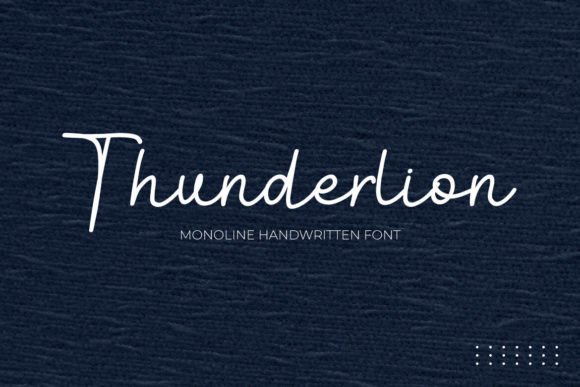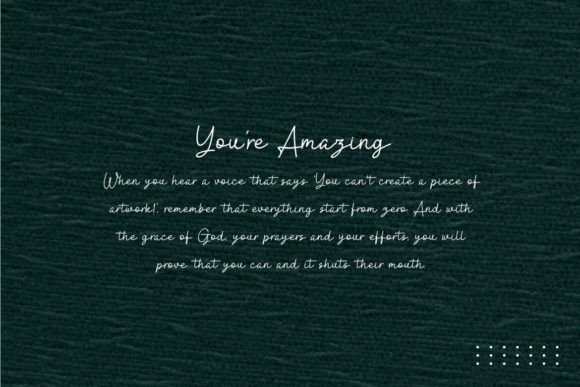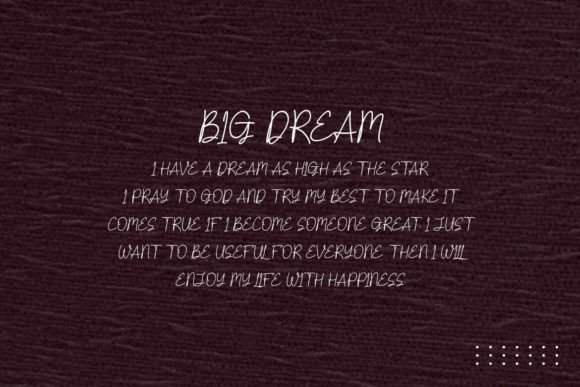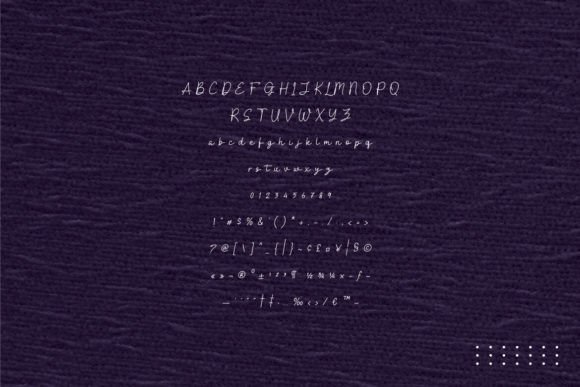
Thunderlion Font
Introducing our elegant **Thunderlion – Monoline Handwritten Font**, perfect for adding a touch of sophistication and charm to your projects. This meticulously crafted font features smooth, single-line strokes that emulate the fluidity and grace of natural handwriting. Whether you’re designing wedding invitations, creating eye-catching logos, or enhancing social media graphics, this versatile font will elevate your work with its timeless appeal.